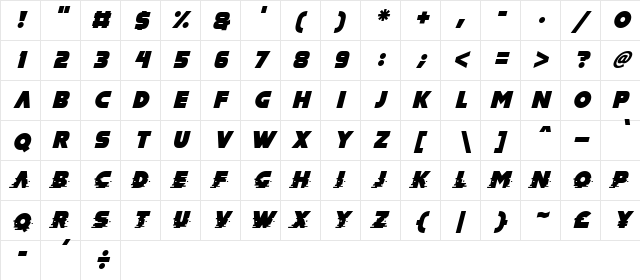
MAD hacker Italic
Design Context for MAD hacker Typeface
MAD hacker is a composed and adaptable typeface that performs quietly and consistently across a wide range of design contexts. The dynamic lean of this cut emphasises speed and emphasis in any layout.